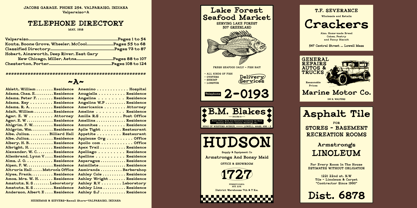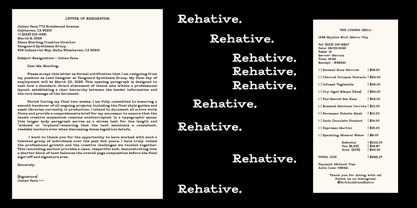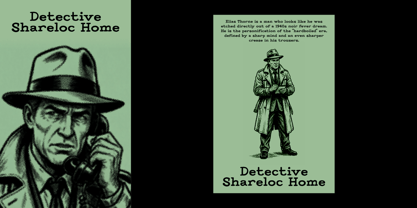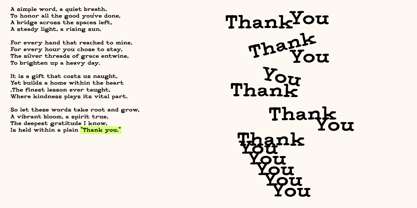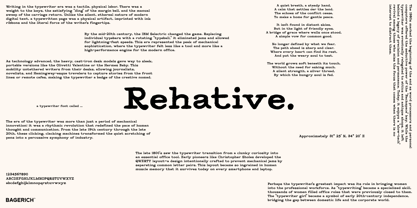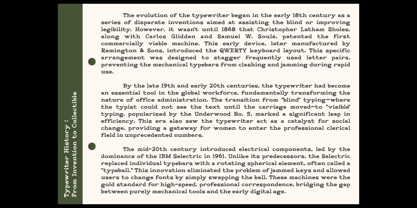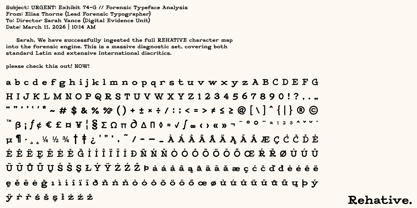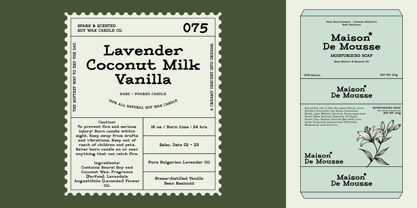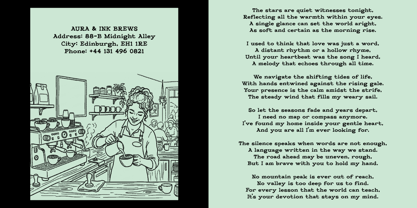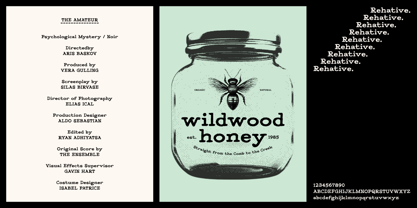
Rehative
by Zealab Fonts Division
The Rehative Font Family was designed by Reza Rasenda and published by Zealab Fonts Division. Rehative contains 1 styles. More about this family
Rehative is a masterful serif typeface that captures the tactile, rhythmic essence of the mechanical typewriter era. It bridges the gap between mid-century industrial utility and modern creative sophistication, echoing the heavy, cast-iron reliability of classic machines like the Hermes Baby and Olivetti Valentine. With its deliberate weighting and distinct, ink-on-paper feel, Rehative transforms digital text into a physical artifact. It is designed for those who value the "slow-tech" revival—the focus that comes when every character feels earned and every sentence carries the weight of a manual keystroke. Perfect for editorial layouts, nostalgic branding, and storytelling, this font brings a "percussive symphony" to the screen. Whether you are channeling the spirit of a Hemingway-esque traveler or designing a clean, modern interface with a vintage soul, Rehative offers a unique blend of sharp precision and organic warmth. It celebrates the legacy of the QWERTY layout and the legendary IBM Selectric, providing a versatile tool for the "creative nomad" who wants their work to stand out with the permanence and authority of a typewritten page.